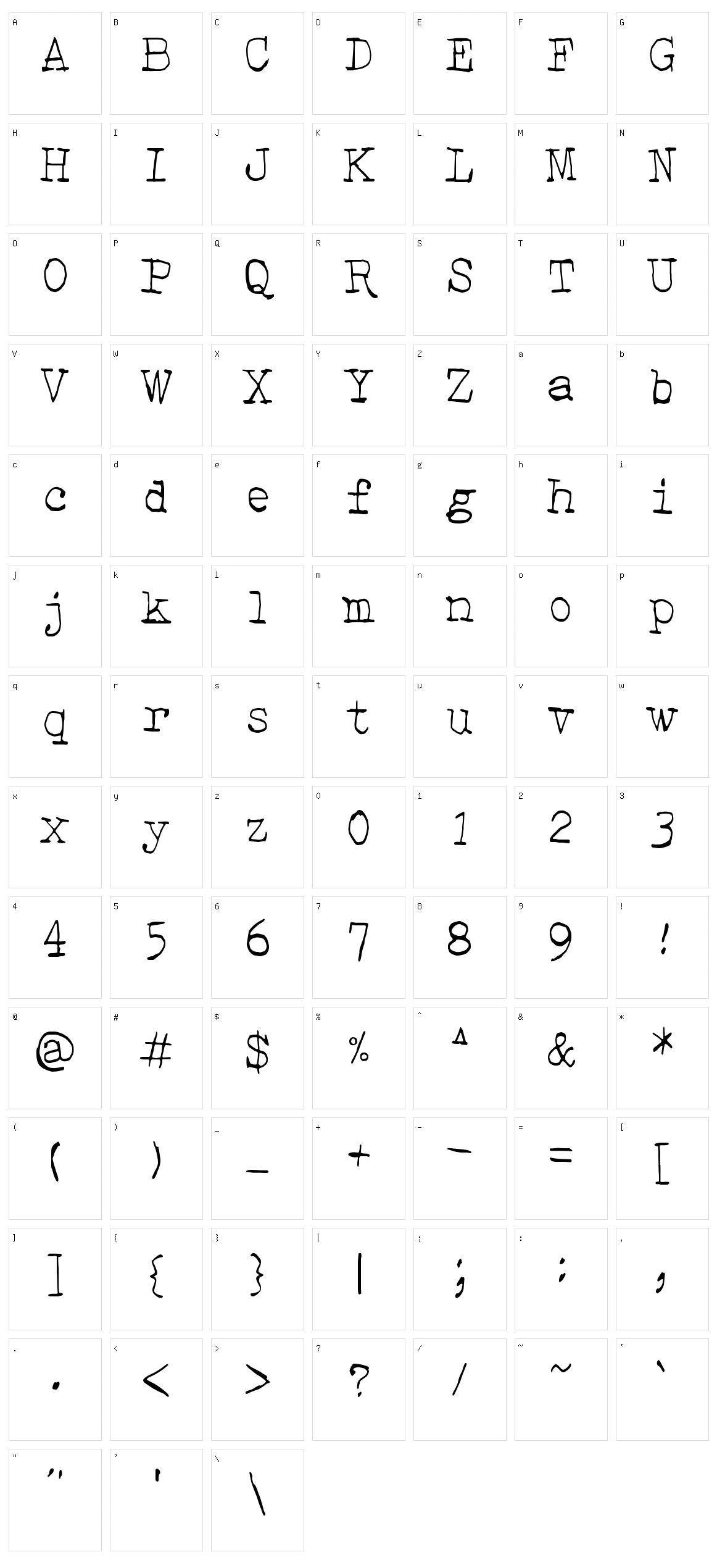
The free font Hehku is carefully designed by junkohanhero, showcasing a thoughtful balance of creativity and usability and falls under the Typewriter font style. When you download the ZIP file, it contains only 497.24 KB of font files, making it lightweight and quick to download. Please review the license details below to understand permitted usage and distribution rights. If license information is not available, we recommend using this font for personal projects only or contacting the author directly for commercial usage permissions.